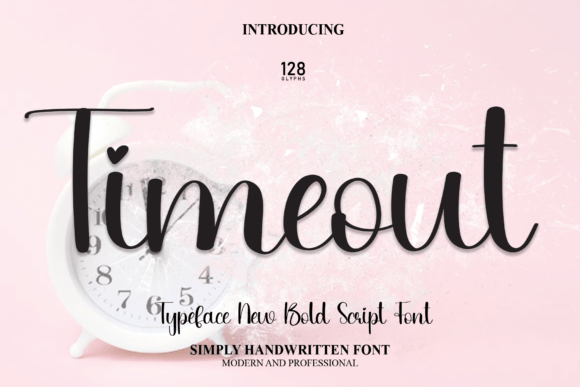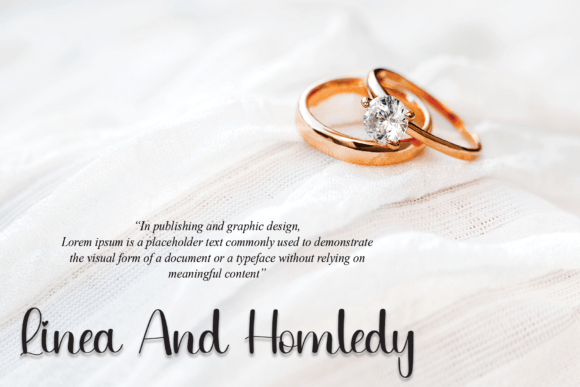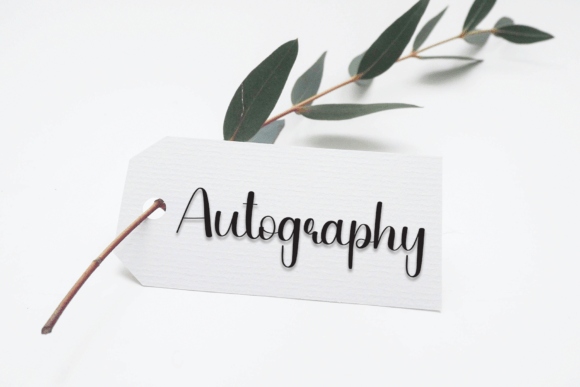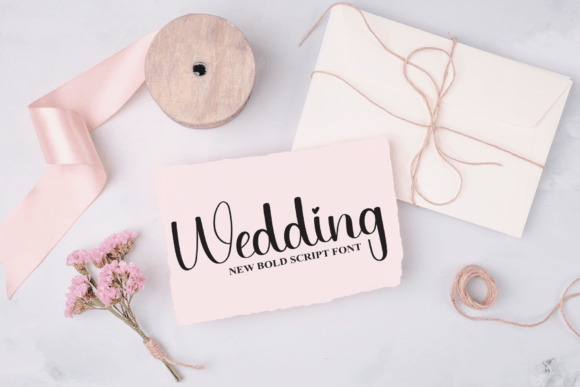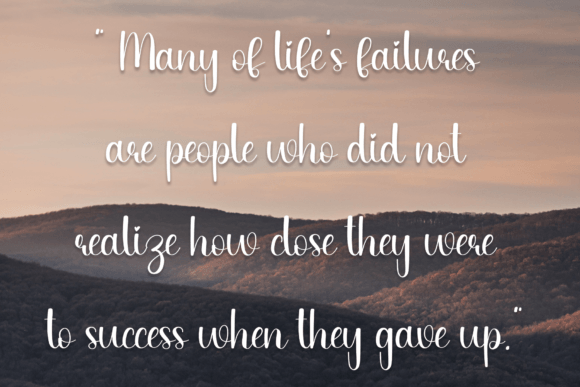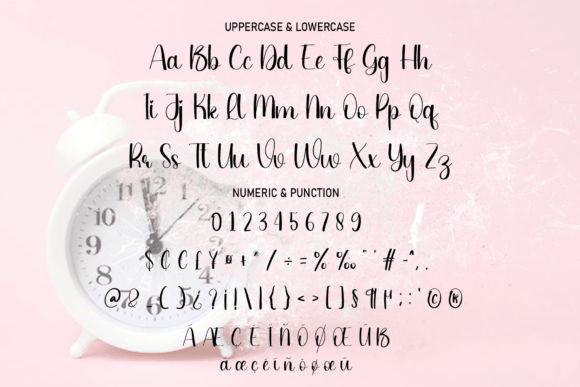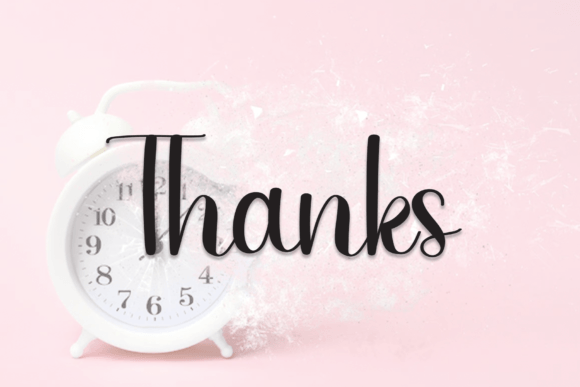
Timeout Font
About Timeout Font
Timeout is a cursive and romantic handwritten font. Its latest style letters are perfect for wall displays, wedding invitations, social media posts, logos, advertisements, product packaging, product designs, labels, photography, watermarks, invitations, stationery, and any project that requires a handwritten taste.